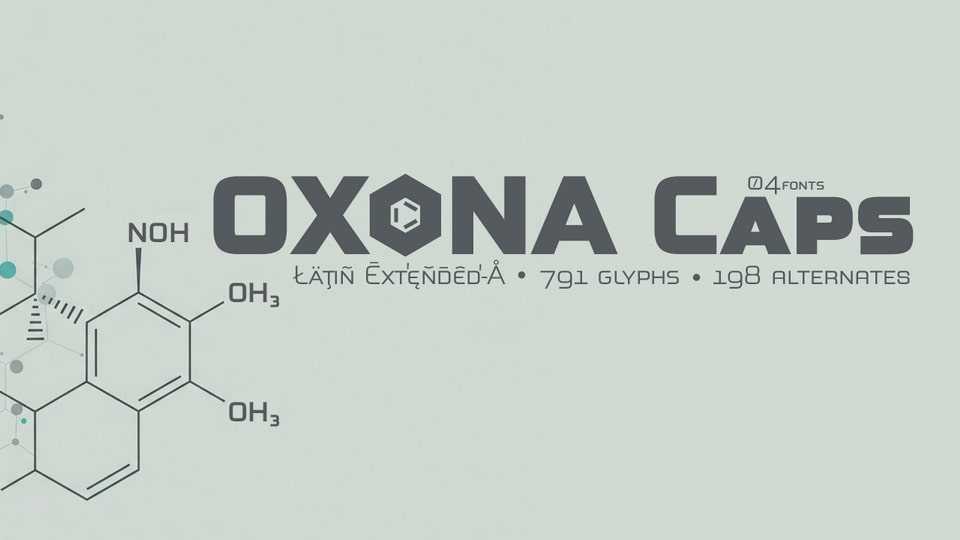
Download Oxona Caps font, a revamped and streamlined version of the Oxona family, preserving the essence of its predecessor. It is a capital letter and small caps typeface.
Designer: Fernando Haro